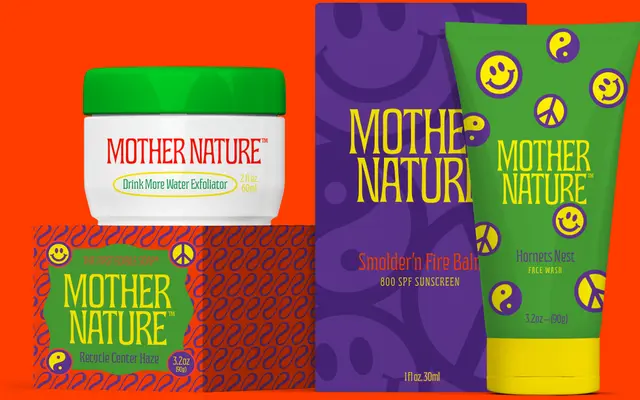
Hermanos
A narrow display face with flared serifs drawn from the hand-painted sign tradition of San Francisco's Mission District.
Rooted in the painted lettering culture of the Mission District, Hermanos carries the informal warmth of hand-made signage into a structured typeface. Its narrow proportions and flared serifs give it a cheerful, slightly ornate character that suits packaging, restaurant branding and seasonal display work. The Chicano lettering vernacular that informs it gives the face a specificity of reference rarely found in display type.
Hermanos is a display typeface with flared serifs and a narrow stature, directly inspired by hand-painted signage from San Francisco's Mission District, placing it firmly in the Latin display tradition.